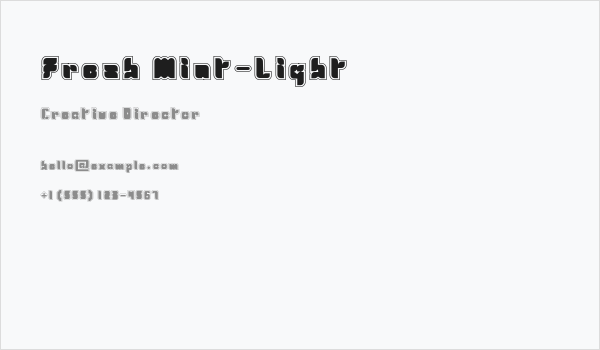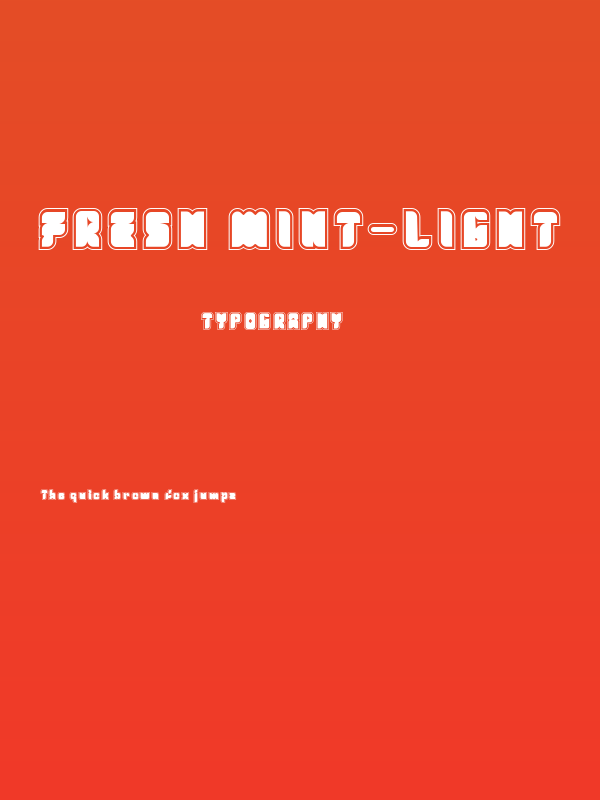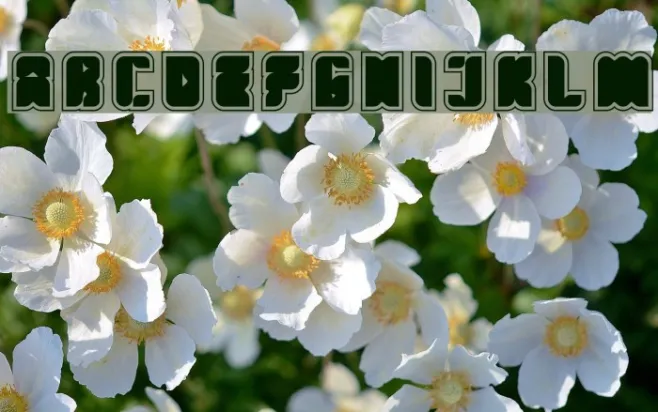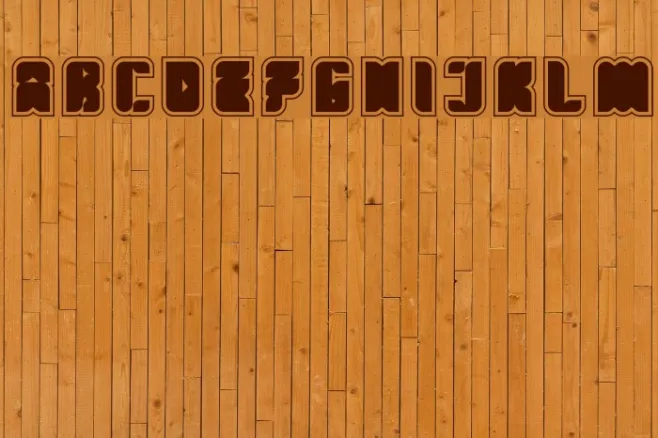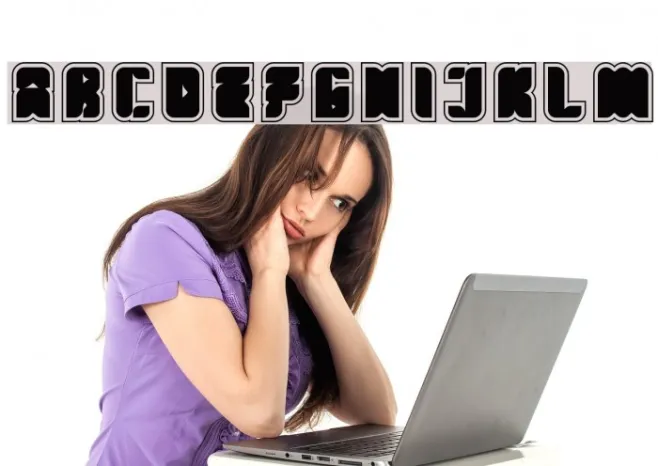
Fresh Mint-Light Font
Fresh Mint-Light Description
This font features a bold, geometric style with a distinct outline that gives it a three-dimensional appearance. The characters are blocky and robust, with a playful yet structured design. Each letter and number is enclosed in a thick border, creating a striking contrast between the inner and outer parts of the glyphs. The font's unique style is characterized by its strong presence and eye-catching design, making it ideal for attention-grabbing headlines or logos. The special characters maintain the same bold and outlined aesthetic, ensuring consistency across all glyphs.
| Proposed Projects | Ideal for branding, posters, and any design requiring a bold, standout typeface. |